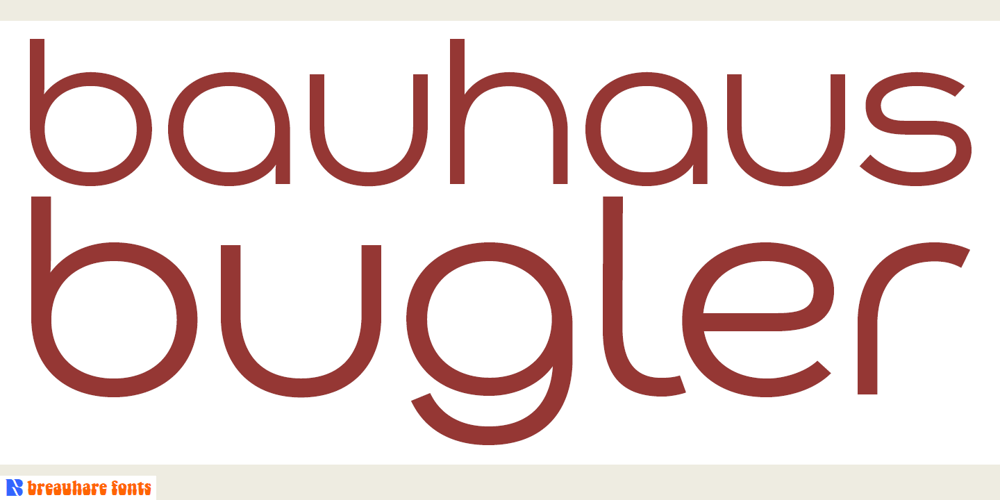
Bauhaus Bugler Font Family was designed by Harry Warren and published by Breauhare. Bauhaus Bugler contains 4 styles and family package options. Bauhaus Bugler’s design never appeared in Harry Warren’s 6th grade class newsletter The Broadwater Bugler but its design came about during that same period in 1975. Because of this, it has been officially designated an honorary Bugler font! Its theme of broad curves that leap over and under conjure visions of fashion and high-end department stores with their dress boxes and shopping bags, plus hair products, cosmetics, couture, and other stylish personal merchandise of the highest caliber. Bauhaus Bugler also has an art deco flavor, especially when all capitals are used. It comes with two alternate versions of the upper and lower Y to give users more freedom of choice. Put Bauhaus Bugler in your “haus” today! Be sure to check out Bauhaus Bugler Soft also! Digitized by John Bomparte.